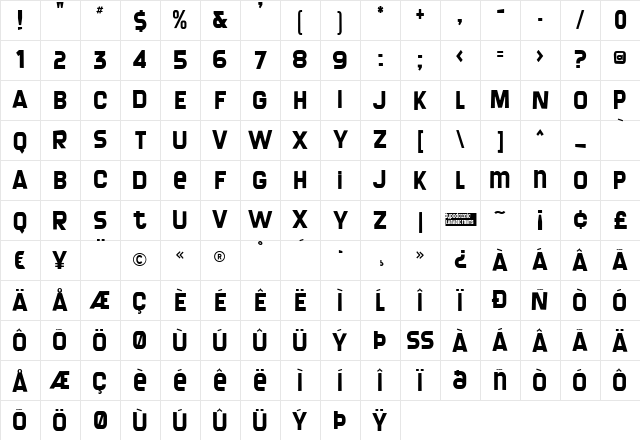
Screengem Regular
Screengem Family
Design Context for Screengem
Screengem is a composed and adaptable typeface that performs quietly and consistently across a wide range of design contexts.